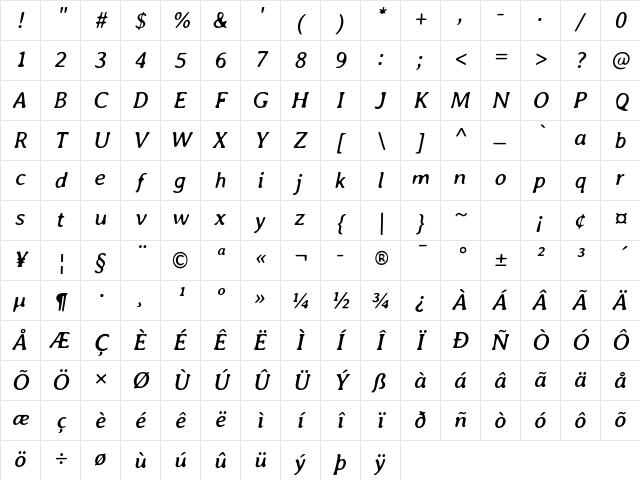
Averia Italic Free Font
Averia Italic
Averia Family
Design Context for Averia
Averia is a composed and adaptable typeface that performs quietly and consistently across a wide range of design contexts. The slanted form adds forward momentum and visual energy.
Pro Tip: Use Averia for emphasis, pull quotes, and subheadings where its slanted energy can add rhythm to the layout.